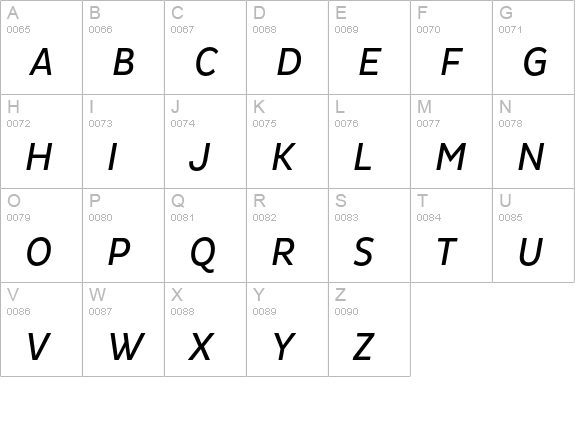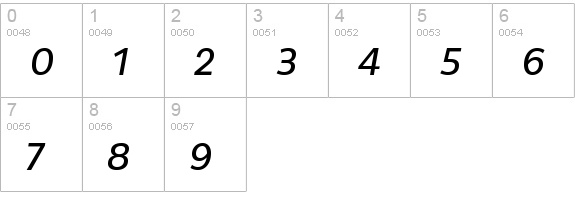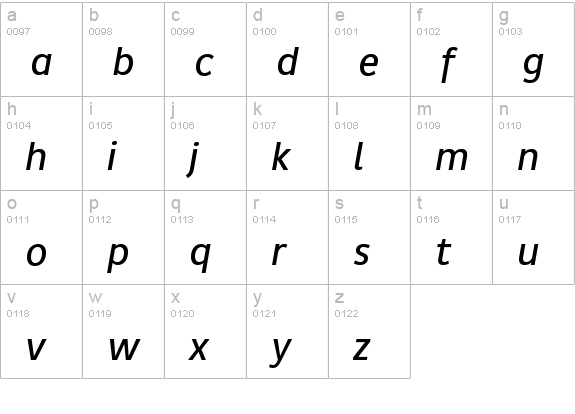
Pluto Sans Cond Regular Italic is the standard, neutral, condensed-width, italic variant in the Pluto typeface family \xE2\x80\x94 well suited to general body text, paragraphs, and standard typographic work.
Pluto Sans Cond Regular Italic font is a modern and sleek typeface that exudes sophistication and elegance. The italicized style adds a touch of dynamism and flair to any design project. With its clean lines and subtle curves, this font is perfect for conveying a sense of professionalism and style. What makes Pluto Sans Cond Regular Italic font even more appealing is that it is available for free download at FontsMarket.com. This means you can easily access this high-quality font without any cost, making it a valuable addition to your font collection. Whether you're working on a branding project, website design, or any other creative endeavor, Pluto Sans Cond Regular Italic font is a versatile choice that will elevate your work to the next level.